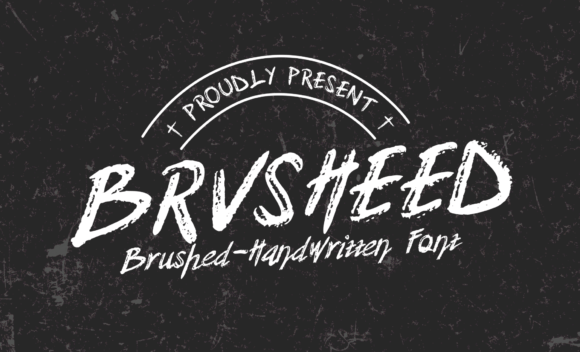
Step into the world of Brvsheed, an awe-inspiring script font family that spells elegance and originality like no other. Its hand-painted brushstrokes, effortlessly flowing with the rhythm of your words, paint a visual symphony that captivates every eye. Dive into the beauty of its Regular and Italic styles, each inviting you to explore a realm of creative possibilities.
With Brvsheed by your side, transcend the ordinary and embark on a typographic journey like never before. Weave magic into your posters, marketing campaigns, and T-shirt designs, crafting messages that resonate with power and panache. Unleash your inner artist and let your words dance across the digital canvas, leaving an indelible mark on every viewer.
Brvsheed's multilingual embrace extends its reach across borders, harmonizing with a diverse array of languages to ensure your message is heard loud and clear. Its distinct character adds a touch of intrigue to your YouTube thumbnails and poster, turning them into masterpieces that demand attention.
Imagine your cinematic vision brought to life with Brvsheed as your cinematic companion. Its bold personality shines on movie posters, immersing viewers in an immersive experience that transports them to another realm. Let Brvsheed be the voice of your creative spirit, amplifying your vision and leaving audiences spellbound.
Embrace the allure of Brvsheed, the font that ignites inspiration and sets your imagination ablaze. Discover a world where typography becomes an art form, where every letter tells a story, and where your creativity knows no bounds. Indulge in the allure of Brvsheed today and unlock the gateway to typographic brilliance.